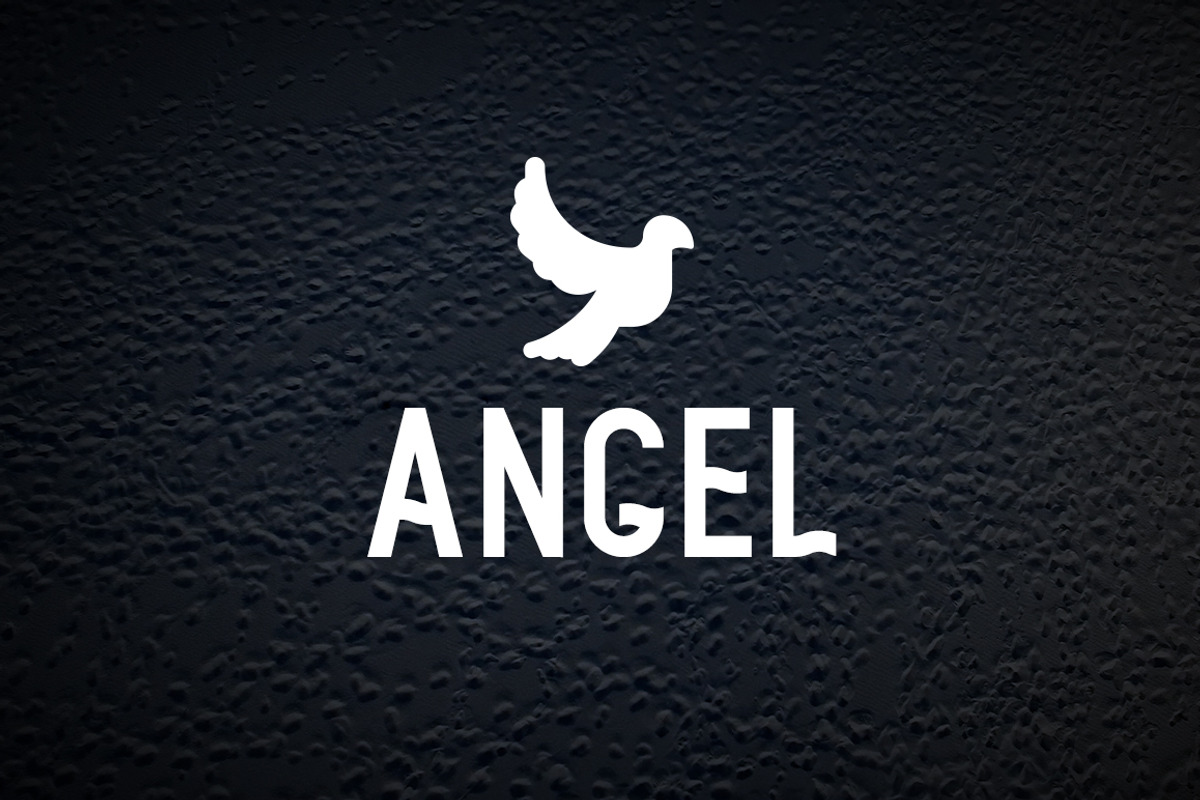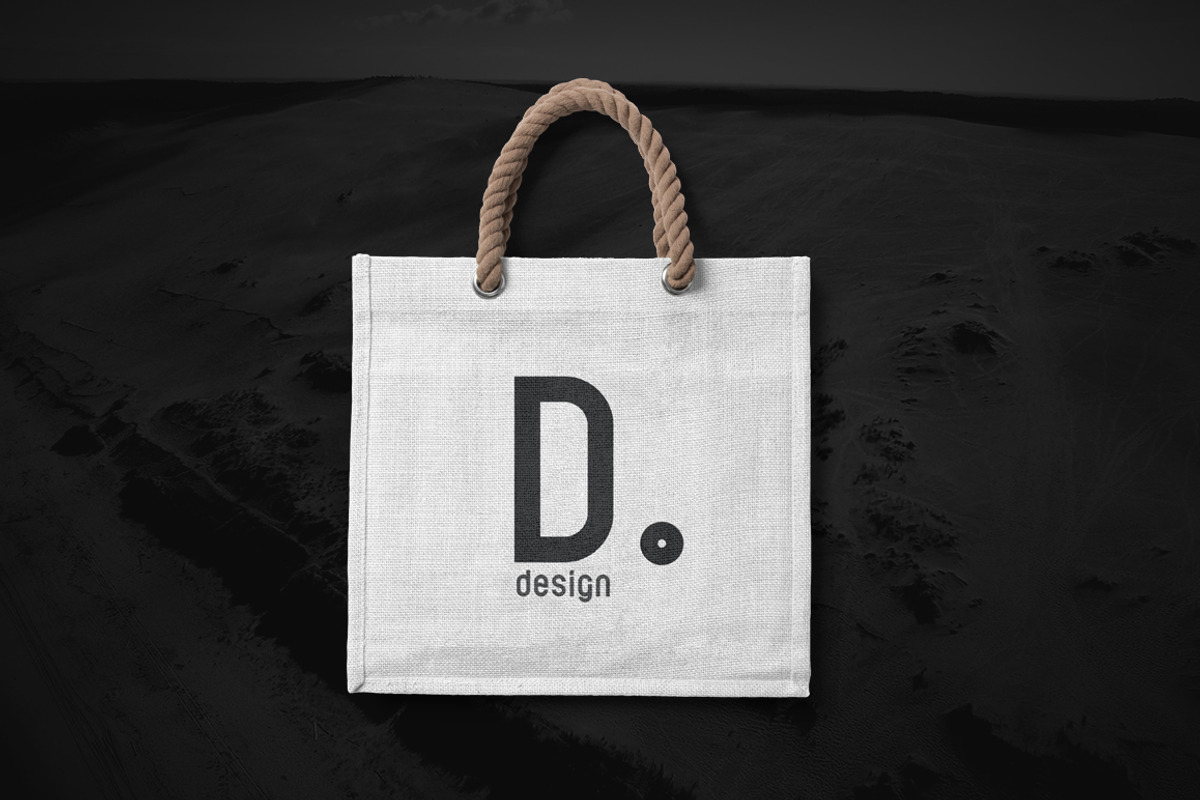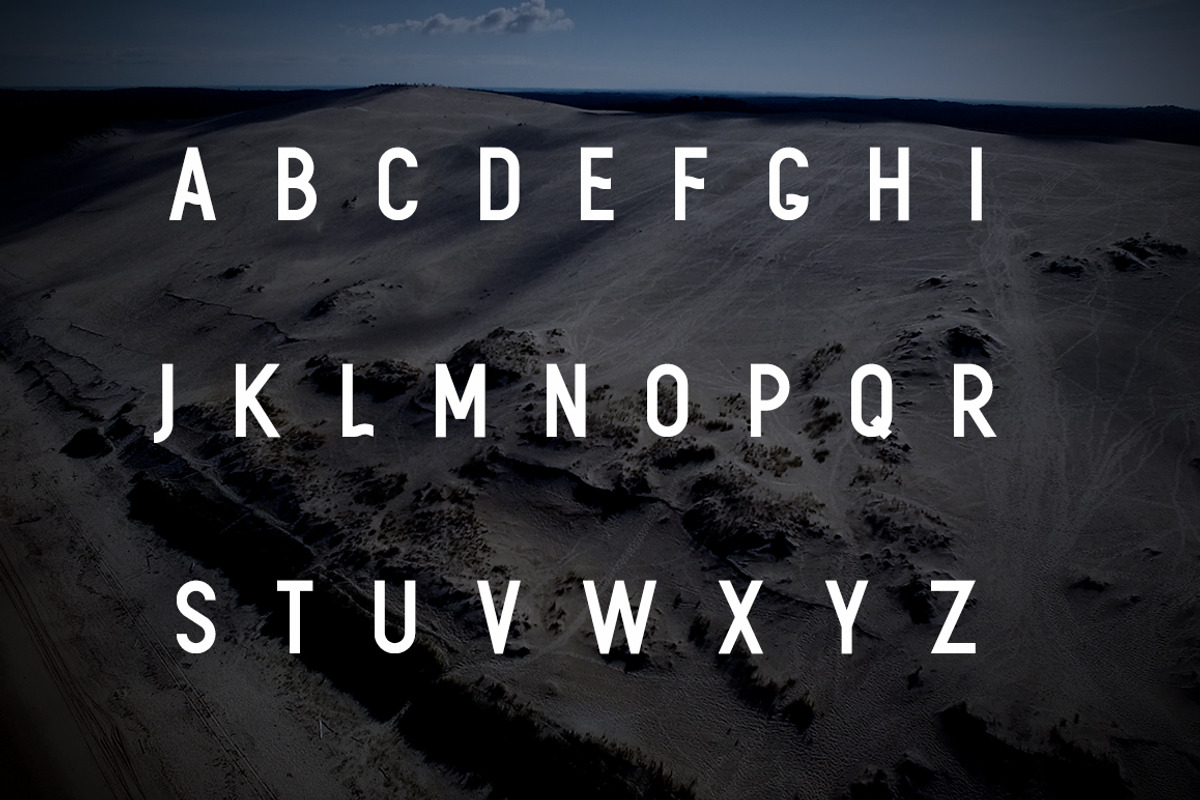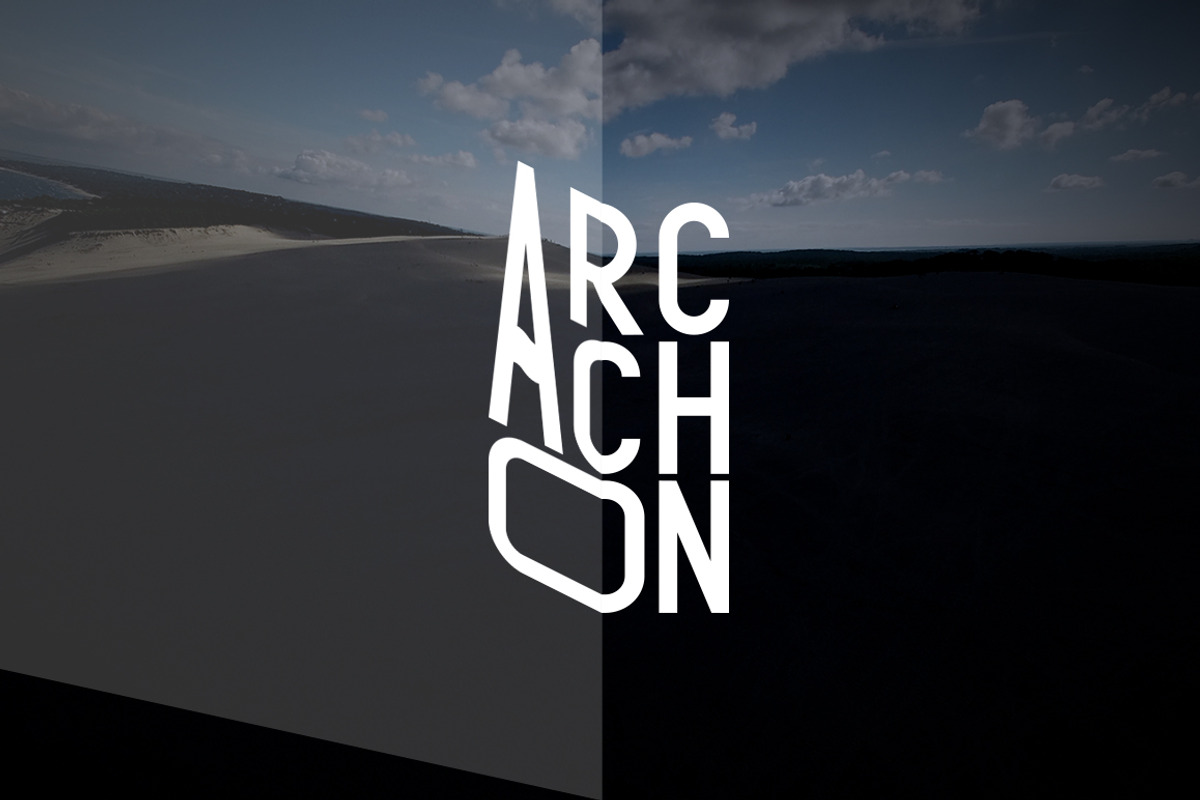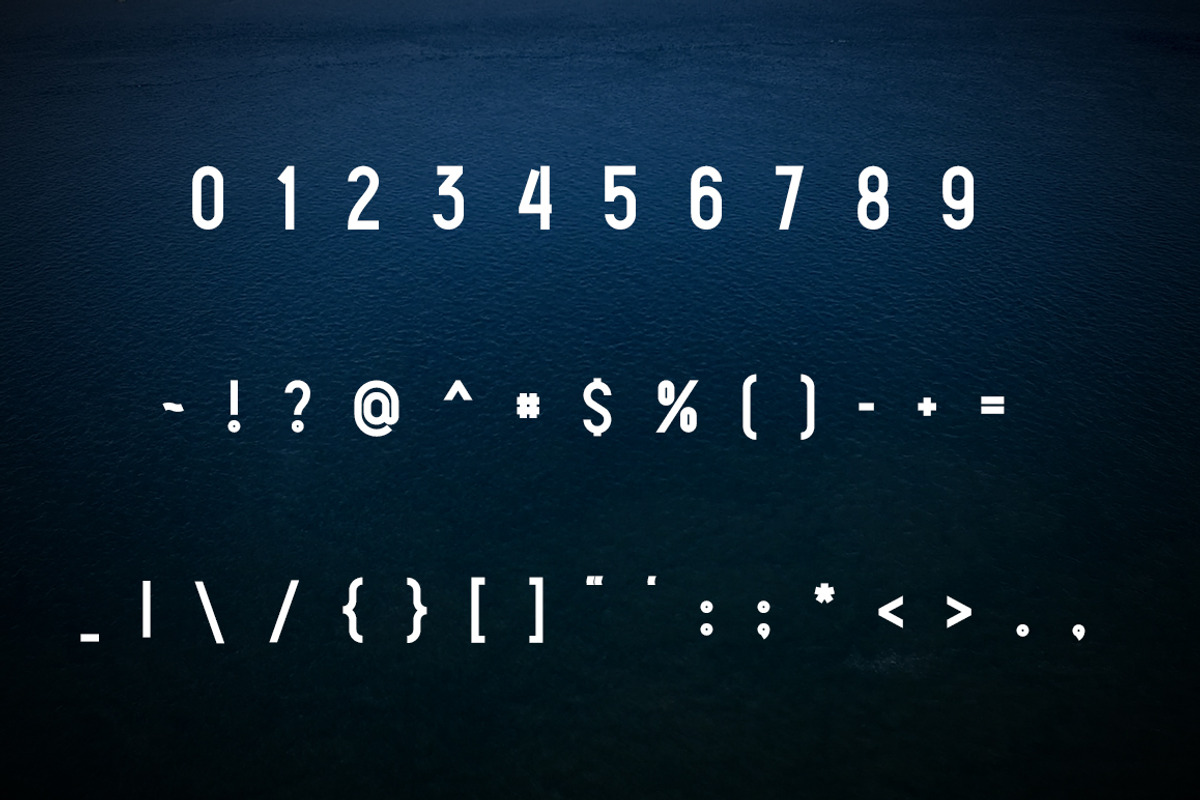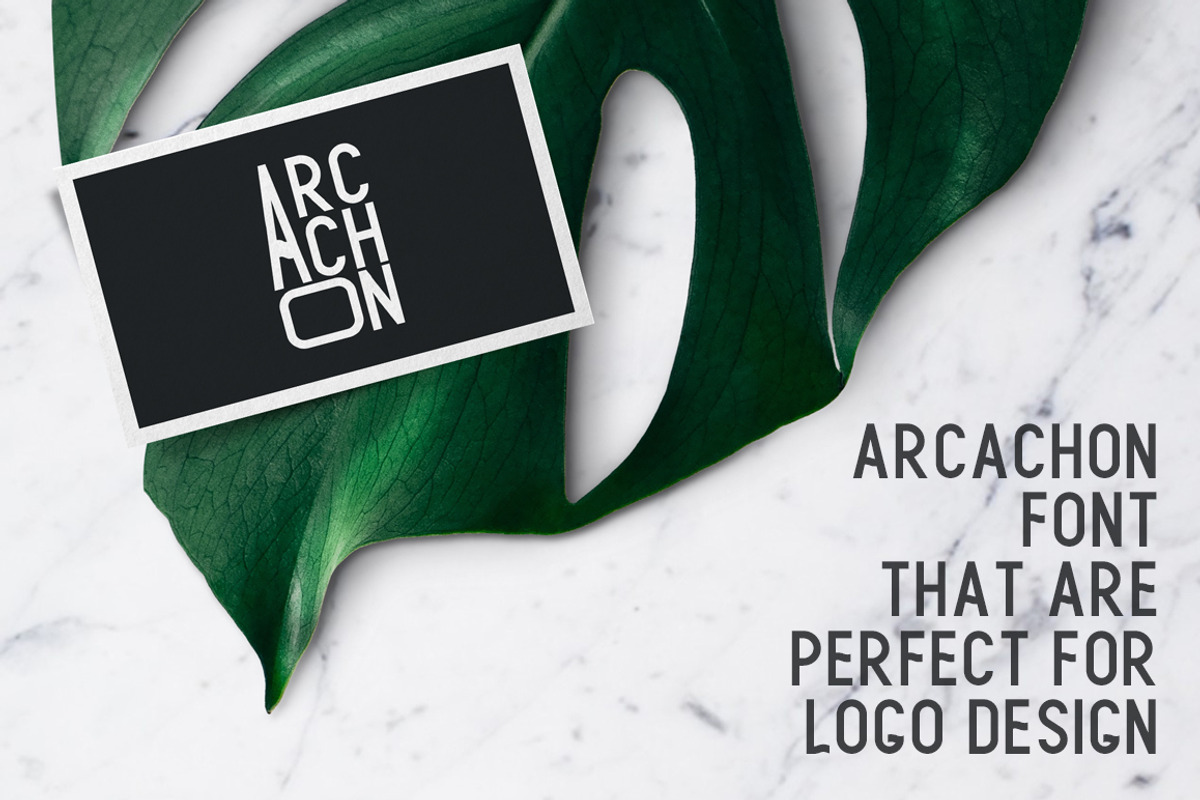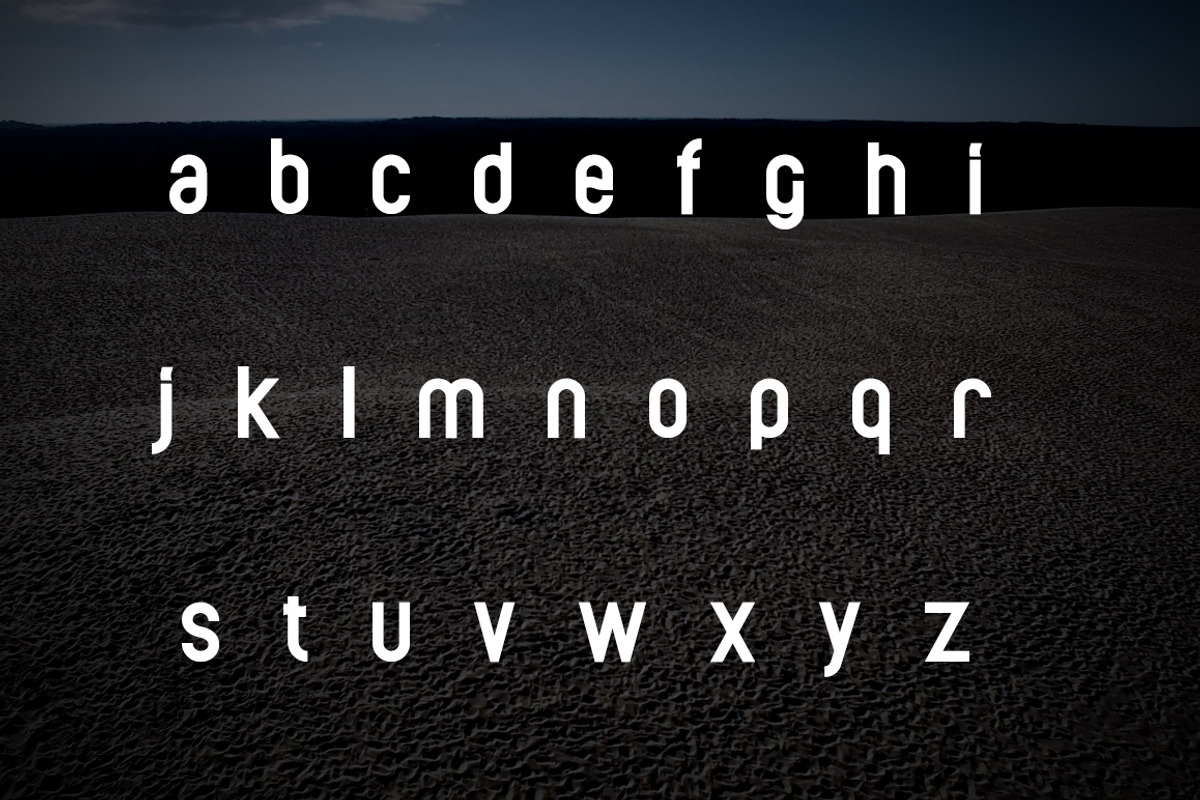
Arcachon Typeface
Arcachon Font is a unique minimalistic typeface.
Made for giving minimalistic titles. Perfect for logo design. Arcachon packs a set of capitals, numbers and punctuation. Font for design logotypes, greeting, prints, web design, invitation, business cards.
Uppercase and lowercase
Numerals, punctuations and special characters
Why Arcachon Typeface is worth a look
Arcachon Typeface by Alex Blogoodf fits naturally into Branding, posters, packaging, typography.